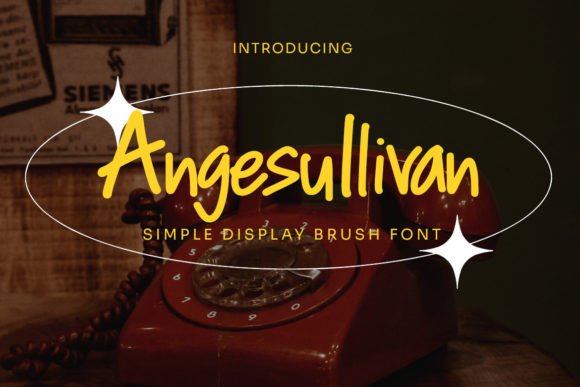
Journey into the realm of timeless beauty and elegance with Angesullivan Font, a creation of Yumnacreative that masterfully blends vintage allure with modern refinement. This exquisite script font captivates hearts with its graceful strokes and intricate details, crafting a visual symphony that transcends time.
Angesullivan's charm lies in its ability to effortlessly elevate your designs to new heights of sophistication and luxury. Its sweeping curves and delicate flourishes evoke a sense of nostalgia, reminiscent of an era where craftsmanship and artistry reigned supreme. Picture your designs adorned with this elegant font, exuding an aura of timeless grace that will leave an unforgettable impression on your audience.
Unleash your creativity and let Angesullivan guide you through a world of endless possibilities. Design high-end invitations that exude elegance and exclusivity, add a touch of vintage charm to your branding materials, or craft retro-inspired projects that radiate a timeless appeal. Each letterform is meticulously crafted to complement the next, creating a harmonious flow that draws the eye and captivates the senses.
With Angesullivan, you hold the key to unlocking a world of design magic. Its versatility extends from personal projects to professional endeavors, allowing you to express your unique style and vision across a wide range of applications. Be it logos, posters, social media graphics, or website designs, Angesullivan effortlessly adapts to your creative needs, leaving an indelible mark of sophistication and class.
Explore the limitless possibilities that await you with Angesullivan. Let your designs transcend the ordinary and embrace the extraordinary. Embrace the beauty of timeless elegance and vintage charm, and watch as your creations blossom into masterpieces that inspire and captivate.